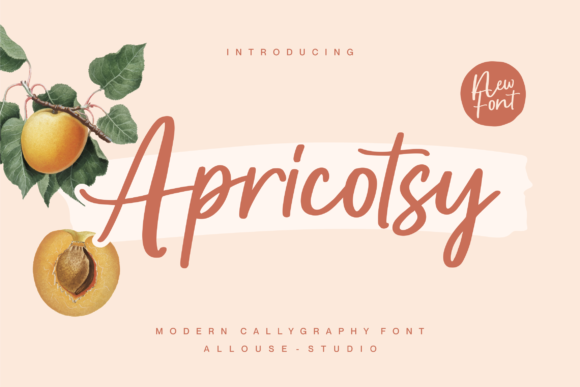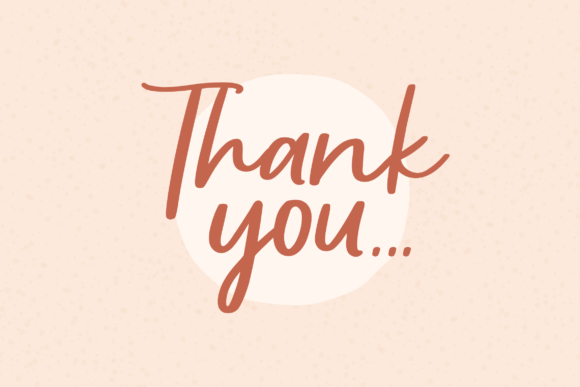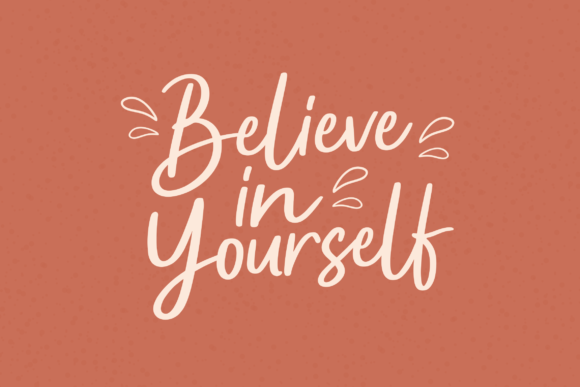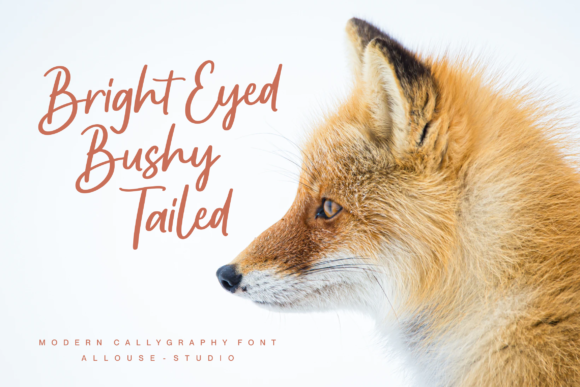
About Apricotsy Font
Apricotsy is a lovely script font featuring charming, playful characters that seem to dance along the baseline. Add this font to your most creative ideas, and notice how it makes them stand out!